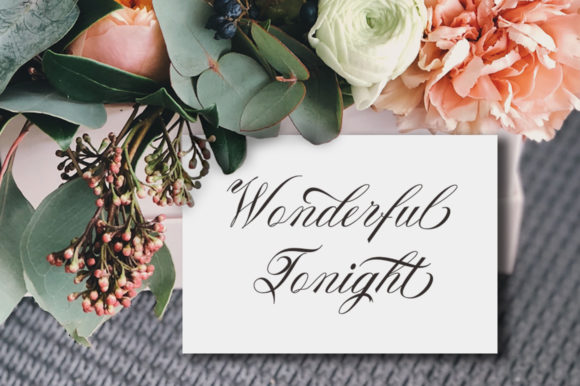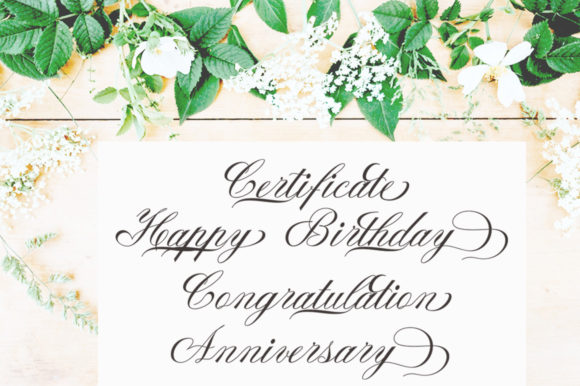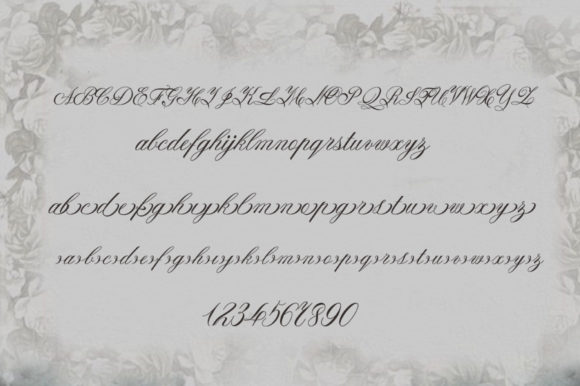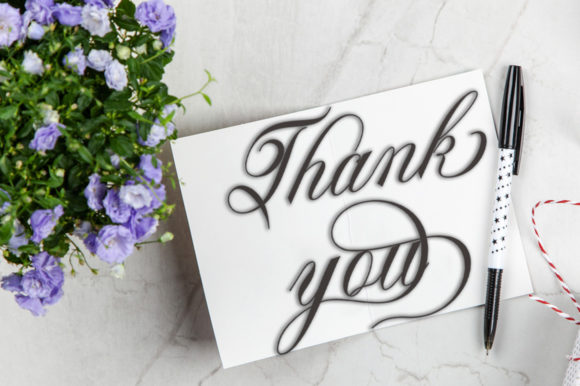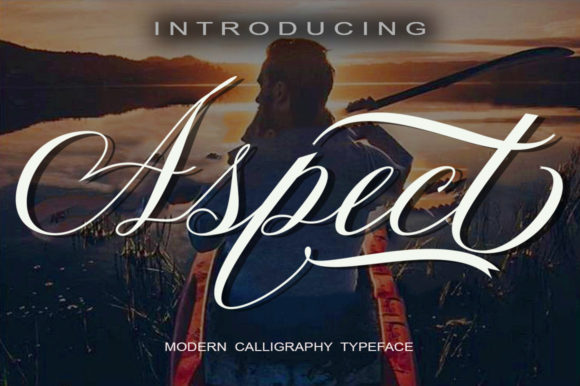
An Honest Review of Aspect Font
Let’s get down to business. Here’s what I love about Aspect Font:
- ✨ Authentic Vibe: Aspect Font has this genuine, handcrafted feel that instantly elevates any design project.
- ✅ Stunning Swashes: The swashes are gorgeous! They add a touch of elegance and sophistication to your designs.
- ✅ Bold and Serious: Aspect Font has a strong personality. It’s perfect for making a statement.
Now, no font is perfect, and here are some minor quirks to consider:
- ⚠️ Glyph Overload: With so many glyphs and swashes available, it can be overwhelming to navigate. Take some time to explore the font.
- 🤔 Limited Use Cases: Aspect Font is a bold script, so it might not be the best fit for very formal or traditional designs.
The Story Behind Aspect Font
Aspect Font was designed by a team of creatives who wanted to craft a font that exudes confidence and sophistication. Inspired by traditional calligraphy and hand-lettering, they created a font that’s both bold and elegant. The result is a stunning script that adds a touch of authenticity to any design project.
| Font Name | Aspect Font |
| Author | Viewtype |
| What makes Aspect Font unique? | Aspect Font stands out with its stunning swashes and authentic, handcrafted feel. |
| Is Aspect Font suitable for body text? | Aspect Font is a bold script, so it’s best used for headlines, titles, or accents. For body text, consider a clearer, more readable font. |